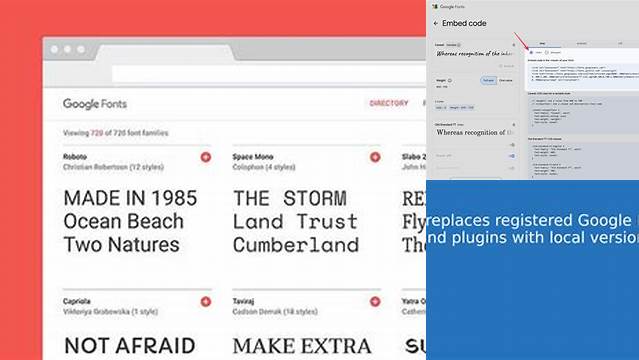
Embed Google Fonts In HTML: A Step-by-Step Guide
Hey guys! Ever wondered how to make your website look super professional and stylish? One of the easiest ways is by using Google Fonts! They're free, easy to use, and can seriously level up your website's appearance. In this guide, we're going to break down exactly how to embed Google Fonts in HTML, step by step. So, let's dive in and get your website looking its best!
1. What are Google Fonts and Why Use Them?
Before we get into the how-to, let's quickly talk about what Google Fonts actually are. Google Fonts is a library of over a thousand free and open-source font families. This means you can use them on your website without paying a dime! Using custom fonts, like those offered by Google Fonts, helps you move beyond the basic, system-default fonts like Arial or Times New Roman, and inject some serious personality into your site. Think of it like this: your font is the voice of your website, and Google Fonts gives you a whole choir to choose from!
Why should you even bother? Well, using Google Fonts can significantly improve your website's readability and visual appeal. A well-chosen font can make your content more engaging, highlight your brand's personality, and even improve user experience. Plus, because Google Fonts are served from Google's servers, they are optimized for fast loading times, which is crucial for keeping your visitors happy.
2. Finding the Perfect Font on Google Fonts
Okay, you're sold on using Google Fonts – awesome! Now, the fun part begins: choosing your font. Head over to the Google Fonts website (fonts.google.com). You'll be greeted with a vast collection of fonts, and it might feel a bit overwhelming at first. Don't worry, we'll break it down. Take your time to browse and explore the different font styles available. There are tons of options, from sleek and modern sans-serif fonts to elegant and traditional serif fonts, and even quirky display fonts. Think about the overall tone and message of your website. Are you going for a professional and clean look, or something more playful and creative? Your font choice should reflect that.
Use the filters on the left-hand side to narrow down your options. You can filter by categories (serif, sans-serif, display, handwriting, monospace), font properties (number of styles, thickness, slant, width), and even language. Try typing a sample text in the preview box to see how the font looks with your actual content. This can be super helpful in visualizing how the font will appear on your website. Also, pay attention to the different styles available within a font family. Some fonts offer variations like light, regular, bold, and italic, which gives you even more flexibility in your design. Finding the perfect font is a bit like finding the perfect pair of shoes – it takes time and a bit of experimentation, but it's totally worth it in the end!
3. Selecting Your Font Styles
Once you've found a font you love, it's time to select the styles you want to use. Not every font comes with just one style. Many fonts have different weights (light, regular, bold) and may even have italic variations. Selecting the right styles is crucial for creating visual hierarchy and emphasizing different parts of your content. Imagine you've chosen a font called "Roboto." You might want to use the regular style for your body text, the bold style for headings, and the italic style for emphasis or quotes. Choosing a variety of styles can really make your website look polished and professional.
But here's a pro tip: don't go overboard! Loading too many font styles can slow down your website's loading time, which can negatively impact user experience and SEO. Stick to the styles you actually need and avoid loading unnecessary extras. A good rule of thumb is to limit yourself to three or four styles per font family. To select your styles on Google Fonts, click on the font you want to use. You'll see a list of available styles. Click the "+ Select styles" button next to each style you want to include. A panel will slide out from the right-hand side of the screen, showing your selected styles and the code you'll need to embed them.
Alright, you've picked your font and styles – now for the magic part: embedding them in your HTML! Google Fonts makes this super easy by providing you with code snippets you can simply copy and paste into your website's code. In the panel that slid out when you selected your styles, you'll see two ways to embed the fonts: using a <link> tag or using an @import statement. The <link> tag method is generally the recommended approach, as it's more performant and can be loaded in parallel with other resources. The @import method, on the other hand, can sometimes slow down page rendering. So, let's focus on using the <link> tag.
The code snippet looks something like this:
<link rel="preconnect" href="https://fonts.googleapis.com">
<link rel="preconnect" href="https://fonts.gstatic.com" crossorigin>
<link href="https://fonts.googleapis.com/css2?family=YourFontName:wght@400;700&display=swap" rel="stylesheet">
Let's break down what this code means:
rel="preconnect": This tells the browser to establish a connection to the Google Fonts server early on, which can improve loading times.href="https://fonts.googleapis.com/css2?family=YourFontName:wght@400;700&display=swap": This is the URL that links to the Google Fonts stylesheet. TheYourFontNamewill be replaced with the name of your chosen font, and thewght@400;700part specifies the font weights you selected (400 is regular, 700 is bold). Thedisplay=swappart is important – it tells the browser to display the text using a fallback font while the Google Font is loading, which prevents the dreaded "flash of unstyled text" (FOUT).rel="stylesheet": This tells the browser that this is a stylesheet link.